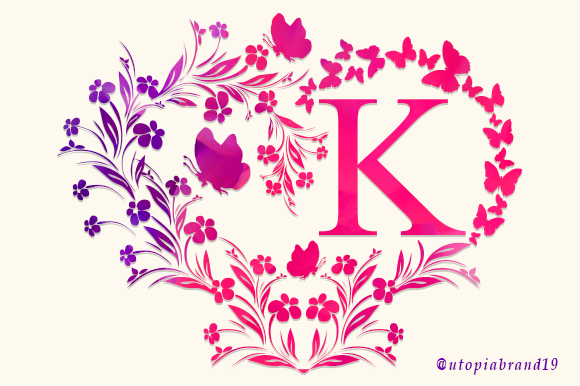
Feast your eyes on the Floral Butterfly Monogram Font, a decorative masterpiece crafted by utopiabrand19. This font family is a symphony of visual delight, an enchanting fusion of delicate blooms and graceful butterflies. Immerse yourself in a realm of elegance and creativity, where imagination takes flight and artistry comes alive.
Envision your designs adorned with this extraordinary font, a visual tapestry of intricate swirls and captivating details. Imagine your brand name or logo transformed into a work of art, exuding charm and sophistication. With its impeccable craftsmanship and remarkable versatility, the Floral Butterfly Monogram Font is the perfect choice for a wide array of projects.
Let your creativity soar as you explore the possibilities with this font. Craft stunning wedding invitations or birth announcements that radiate joy and romance. Create eye-catching marketing materials that blossom with elegance. Design enchanting posters, flyers, and social media graphics that flutter with beauty.
Unleash your inner artist and let your imagination run wild. The Floral Butterfly Monogram Font is an open door to a realm of possibilities, inviting you to create designs that captivate hearts and minds. Embrace the exquisite beauty of this font and let it elevate your creative endeavors to new heights.